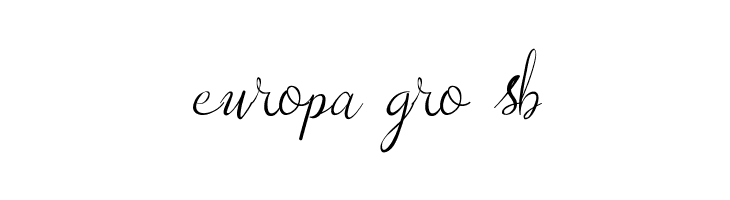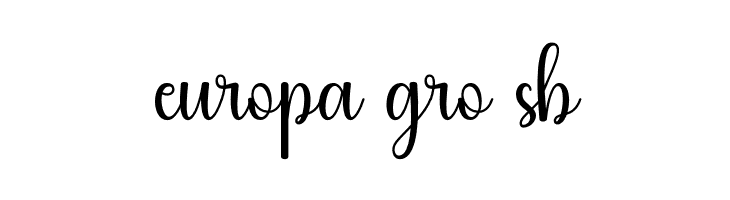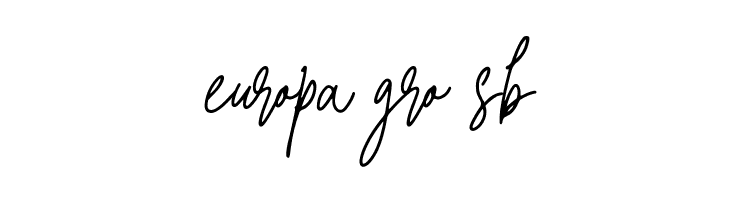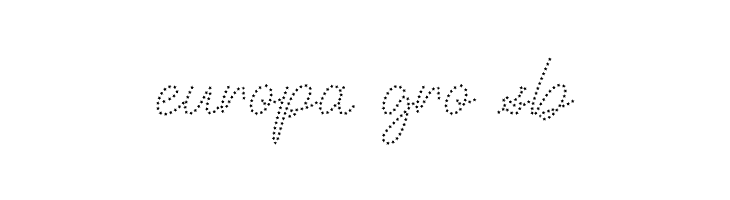
An ornate, decorative font with a festive, calligraphic style.
A playful, festive font with bold, rounded characters ideal for holiday themes.
A whimsical, festive handwritten font with elegant loops and holiday motifs.
An elegant script font with flowing, cursive strokes and graceful loops.
A playful, hand-drawn style font with tall, narrow letters.
A playful and elegant script font with a modern twist.
A flowing, elegant script font with a natural handwriting style.
A playful, hand-drawn font with rounded edges and a whimsical style.
A dotted script font with a festive, whimsical style.
A festive, cursive script font with elegant, flowing characters.